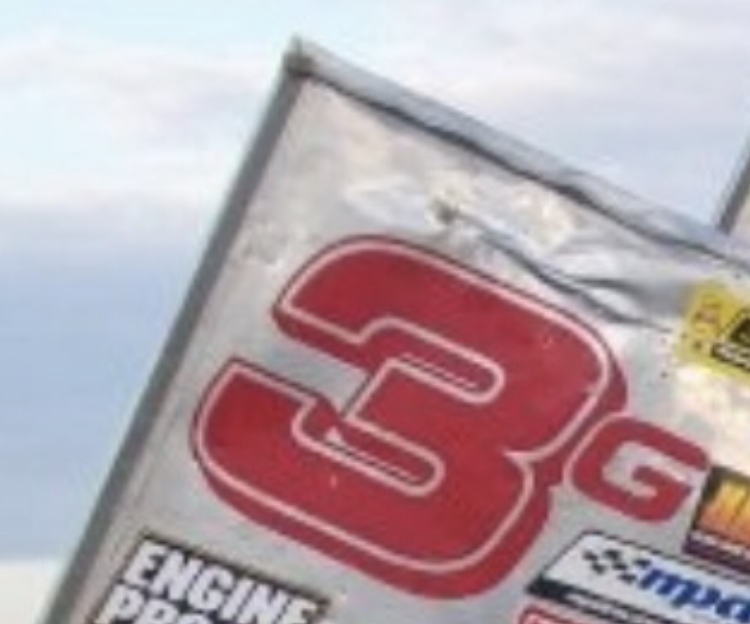
Looks very familiar, any help with this font?
Hey everyone, we had a customer come in today for some cut vinyl and wants the number 3 like the picture I attached. Any help would be greatly appreciated!
B Eurostyle Extended Two Bold ...oblique/skewed
G same font as B with modified upper terminal or Montalban with modified terminal on center arm.